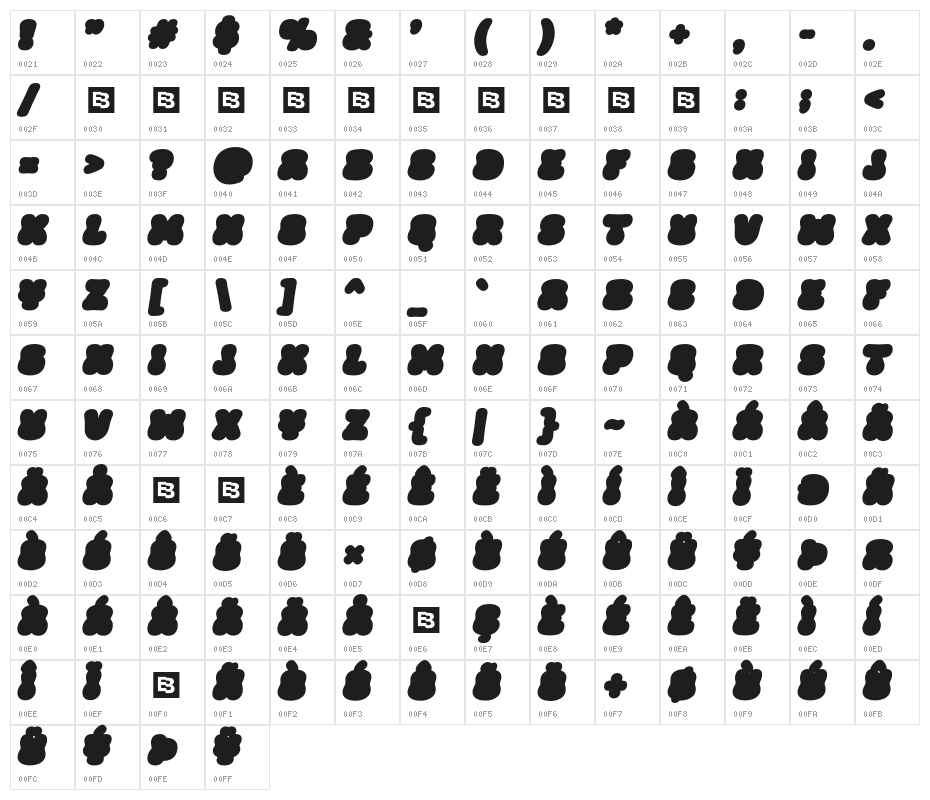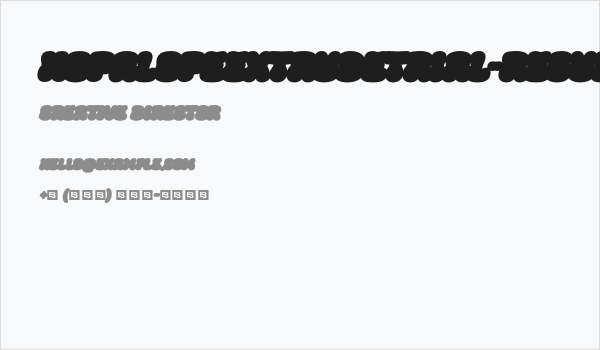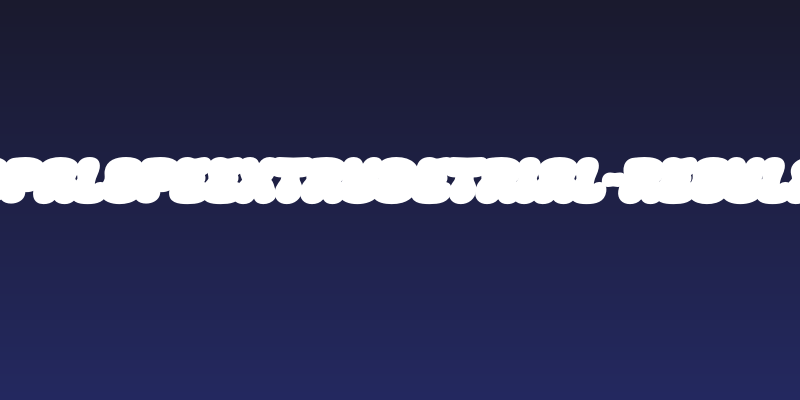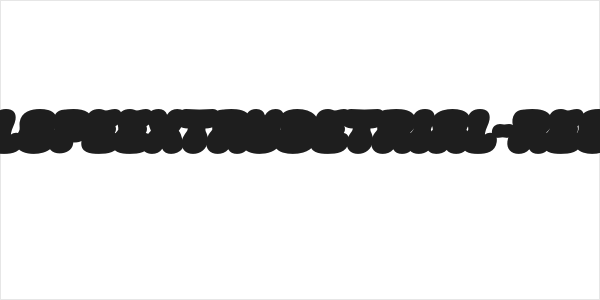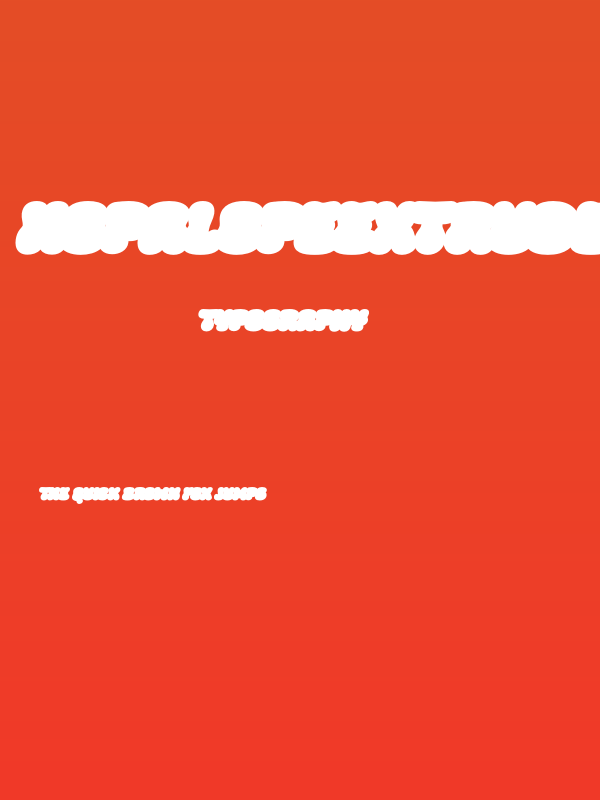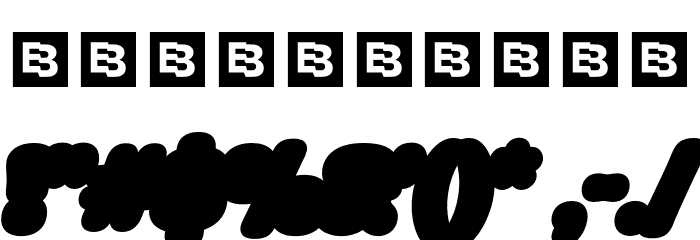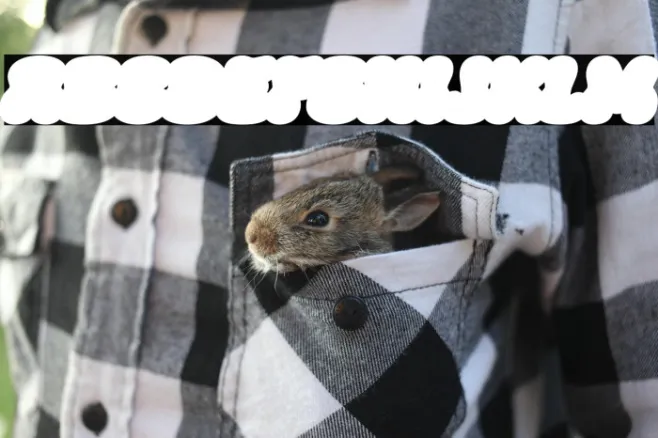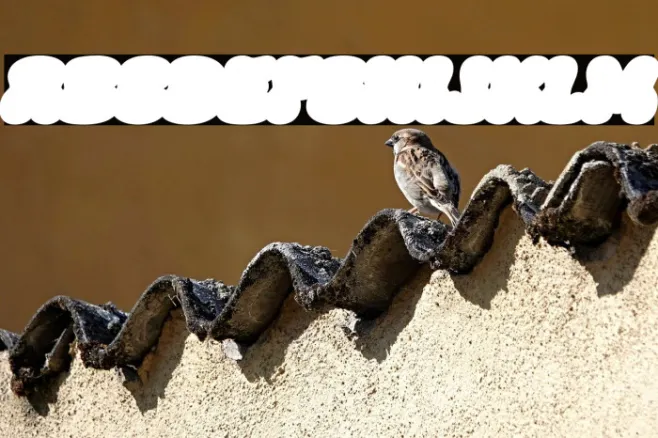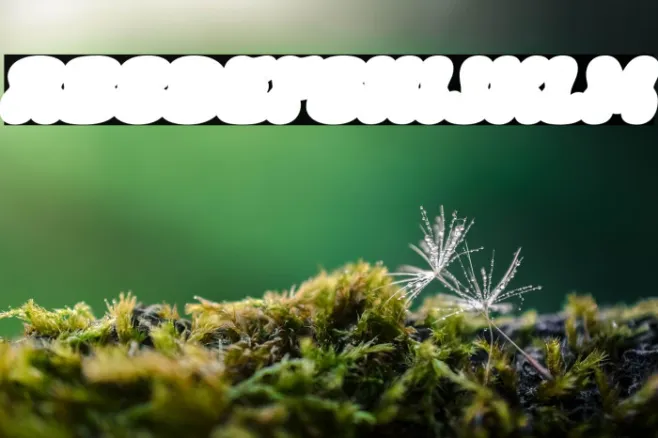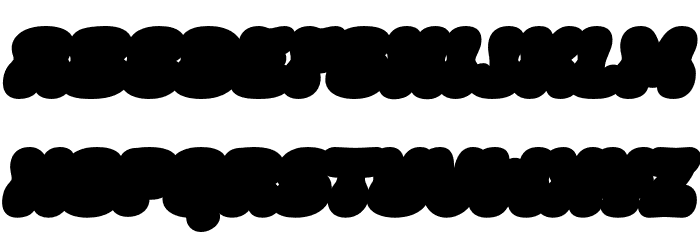
HOPALOPEEXTRUDETRIAL-Regular Font
| Schriften Familie | HOPALOPE EXTRUDE TRIAL |
| Breite | Expanded |
| Gesamtstil | Playful, Modern |
| Anwendungsfall | Logos, Headlines, Posters |
| Vorgeschlagene Projekte | Ideal for children's books, playful branding, party invitations, and creative posters. |